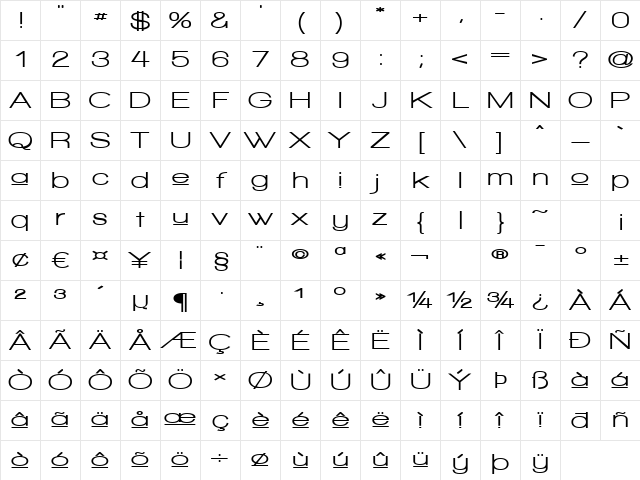
Walkway Upper Expand Ultra Regular Free Font
Walkway Upper Expand Ultra Regular
Design Context for Walkway Upper Expand Ultra
Walkway Upper Expand Ultra is a composed and adaptable typeface that performs quietly and consistently across a wide range of design contexts.
Pro Tip: Use Walkway Upper Expand Ultra in both headline and body roles to test its range before committing to a single application.